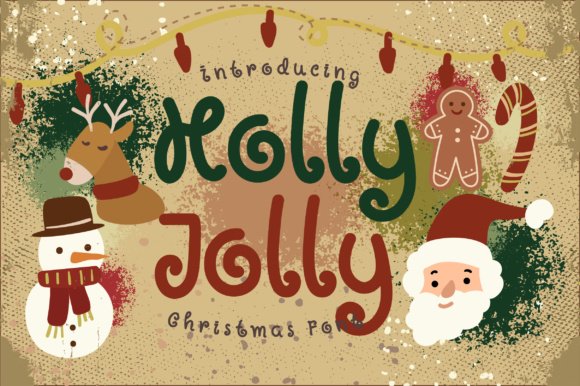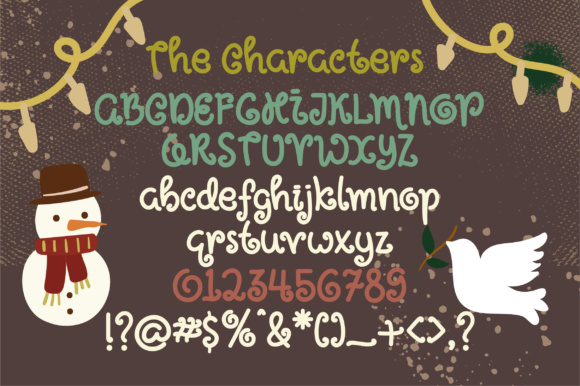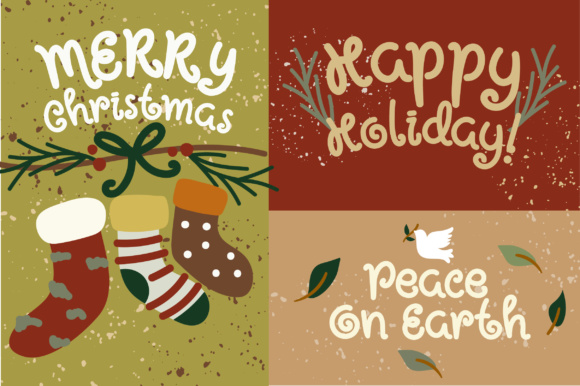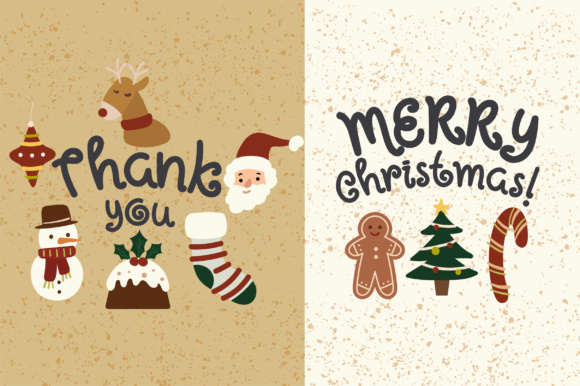
Deck the Halls with Holiday Cheer: Introducing the Holly Jolly Font
As a designer, there’s nothing quite like the feeling of diving into a new project and unleashing your creativity. For many of us, the holiday season is the perfect time to get into the spirit and let our imaginations run wild. It’s a time for twinkling lights, hot cocoa, and all things merry and bright. And what better way to capture that magic than with the perfect font?
Enter the Holly Jolly Font, a fun and whimsical typeface that’s sure to put a smile on your face. With its playful letters and cheerful vibe, this font is the perfect addition to any holiday design project. Whether you’re creating cards, invitations, or social media graphics, the Holly Jolly Font is sure to bring a touch of festive flair to your work. And as a bonus, you’ll also receive 21 adorable Christmas icons to complement your design.
Holly Jolly Font Key Features
- Font Family: Holly Jolly Font is a unique and festive font family designed specifically for holiday and Christmas-themed designs.
- Character Set: The font family includes a comprehensive set of characters, including uppercase and lowercase letters, numbers, punctuation marks, and special characters.
- Unique Characteristics: Holly Jolly Font features a distinctive and playful design, with intricate details and ornaments that evoke a sense of nostalgia and festivity.
Holly Jolly Font Review
Overall, I think the Holly Jolly Font is a fun and festive choice for holiday projects. Here’s what I like and dislike about it:
- Unique and playful design that captures the holiday spirit.
- Wide range of character sets, including uppercase and lowercase letters, numbers, and punctuation.
- Good legibility, even at smaller font sizes.
- Includes various font weights and styles to add some visual interest.
- Limited language support, which might be a problem for non-English projects.
- No bold or italic styles available for some character sets.
- Font size limitations – might not be ideal for large or small text.
The Holly Jolly Font is perfect for projects that require a touch of whimsy and holiday cheer. It’s a great choice for posters, invitations, and other print materials. However, if you’re planning a multilingual project or need more font style options, you might want to consider an alternative.
The Holly Jolly Font is perfect for creating festive and playful designs, such as:
Christmas and holiday cards
New Year’s Eve invitations
Party and event flyers
Wedding invitations and decorations